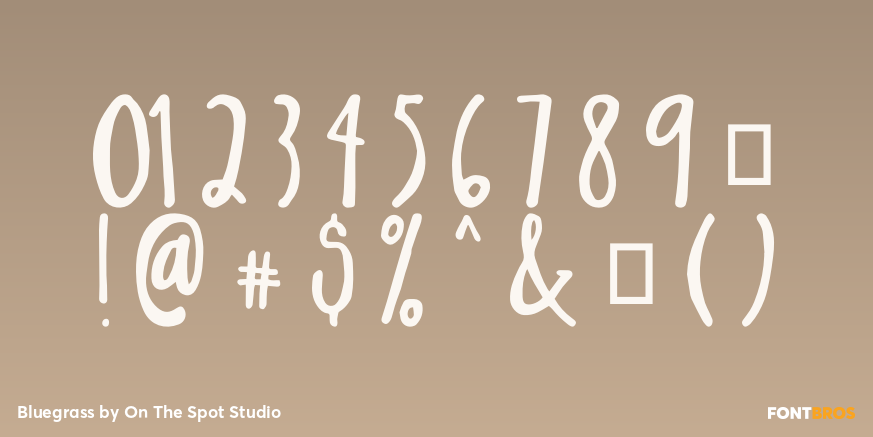
Bluegrass
Font Family by On The Spot Studio
Upper and lowercase brushed script perfect for logo design, lettering projects, scrapbooking and so much more. Personal and commercial use OK.